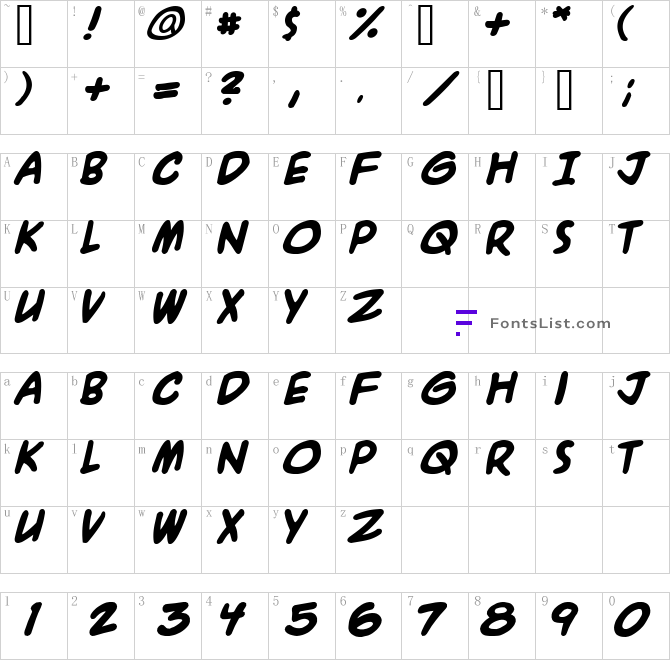
- Font Name:A.C.M.E. Explosive
ACME-Explosive-Bold.ttf is a very beautiful artistic font, ACME-Explosive-Bold.ttf is widely used in the design and printing of various books and pictures,ACME-Explosive-Bold.ttf has a strong visual impact,ACME-Explosive-Bold.ttf is a commonly used font in newspapers, magazines and books, and is used in posters, e-commerce Poster design, store design, logo design, font design and other fields.ACME-Explosive-Bold.